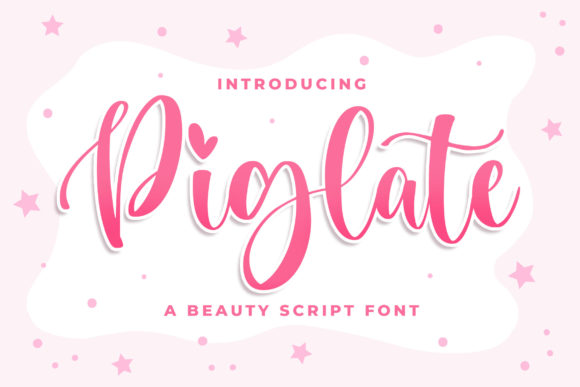
Prepare to fall head over heels in love with Piglate Font, the enchanting script font that exudes romance and playfulness. Crafted with care by Blankids Studio, this font is a true masterpiece, designed to make your heart flutter and your designs shine.
Piglate dances across the page like a love letter penned by a passionate soul. Its graceful curves and elegant strokes evoke a sense of nostalgia, reminding us of cherished memories and timeless love stories. Whether you're creating heartfelt Valentine's Day cards, whimsical wedding invitations, or charming social media posts, Piglate will effortlessly elevate your words and make them sing.
With Piglate, you'll embark on a typographic journey that's both captivating and enchanting. Fall under the spell of its playful personality and let your creativity soar. This font will transform your designs into visual masterpieces, capturing the hearts of your audience and leaving them swooning for more.
Indulge in the beauty of Piglate today and let your designs bloom with romance and charm!